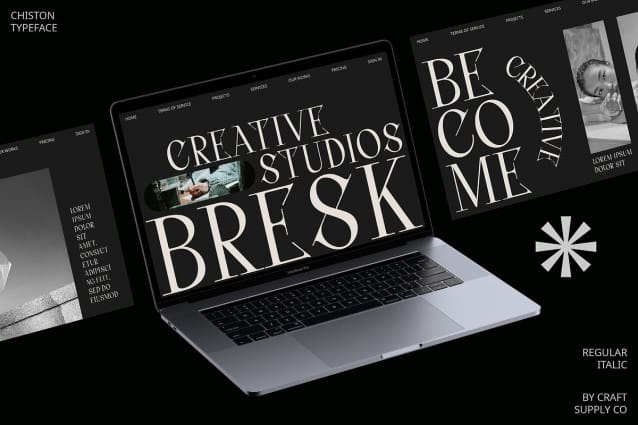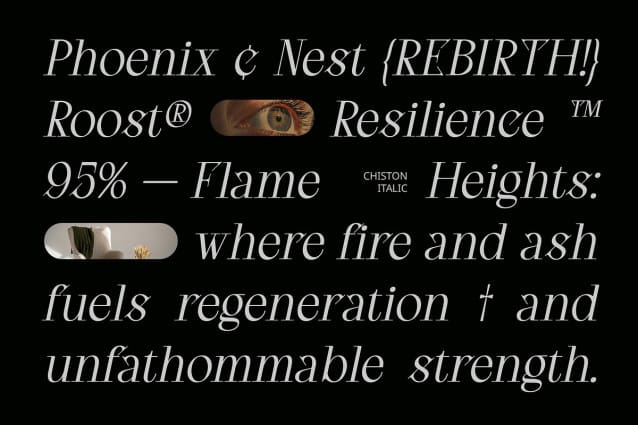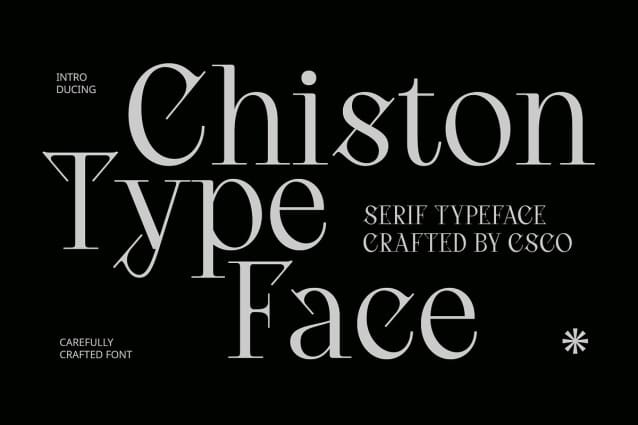
Chiston Font
Chiston Font, our modern serif font, designed to elevate all your creative designs. With its sleek lines and timeless elegance, Chiston brings a touch of sophistication to any project.
With its versatile design, Chiston Font is suitable for a wide range of creative applications, from editorial layouts to branding materials. Its modern serif style adds a sense of refinement and professionalism to your designs.
Chiston Font is the ideal choice for usage in creative studio designs. Whether you’re designing a logo, crafting a magazine layout, or creating promotional materials, Chiston adds a touch of flair and creativity to your projects.
Chiston Font prioritizes creativity, ensuring that your designs stand out and make an impact. Its modern serif style adds a unique and stylish touch, setting your work apart from the rest.
Elevate your creative designs with Chiston Typeface and unleash your artistic vision like never before.